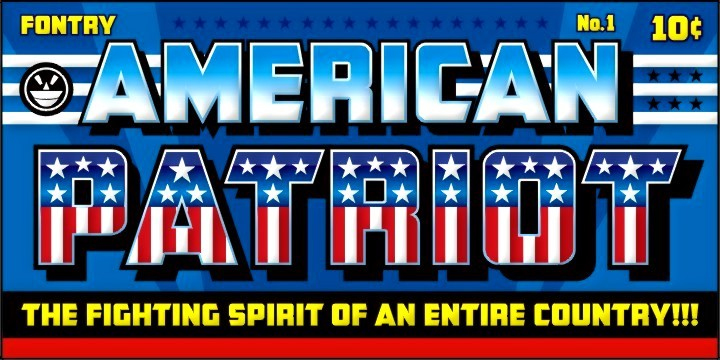
CFB1 American Patriot
CFB1 American Patriot Collection
Do you love your country as much as you love fonts? Are you a Comic Fanboy? A CFB with a soft spot in
your heart for those spangled superheroes willing to fight for the American way of life? Do you joyously celebrate the 4th of July? Do you admire the Pledge of Allegiance, Old Glory, Lady Liberty, the Star-Spangled Banner? Do you hum the National Anthem on your drive home? Do you put country first?
CFB1 American Patriot was inspired by the patriotic lettering styles that arose out of the golden and silver age of comics, when real heroes dawned the stars and stripes and battled the forces of tyranny with fierceness and unashamed pride.
The CFB1 American Patriot is offered on limited terms complete with 2 patriotic variations. So start showing off your colors, utilizing the Styles menu to create a truly American layering effect. Be a patriot true! Stack up the layers for the red, white and blue!